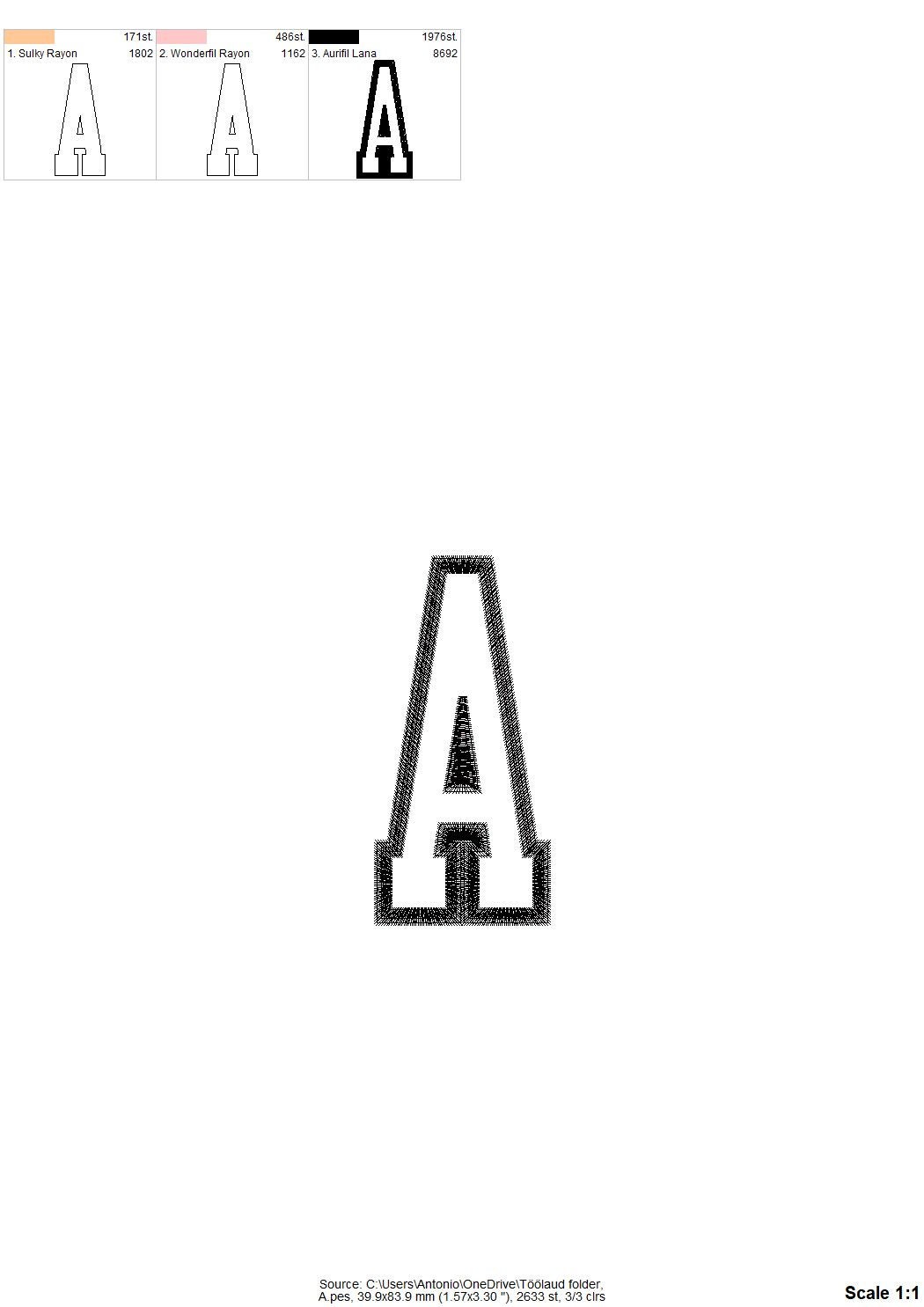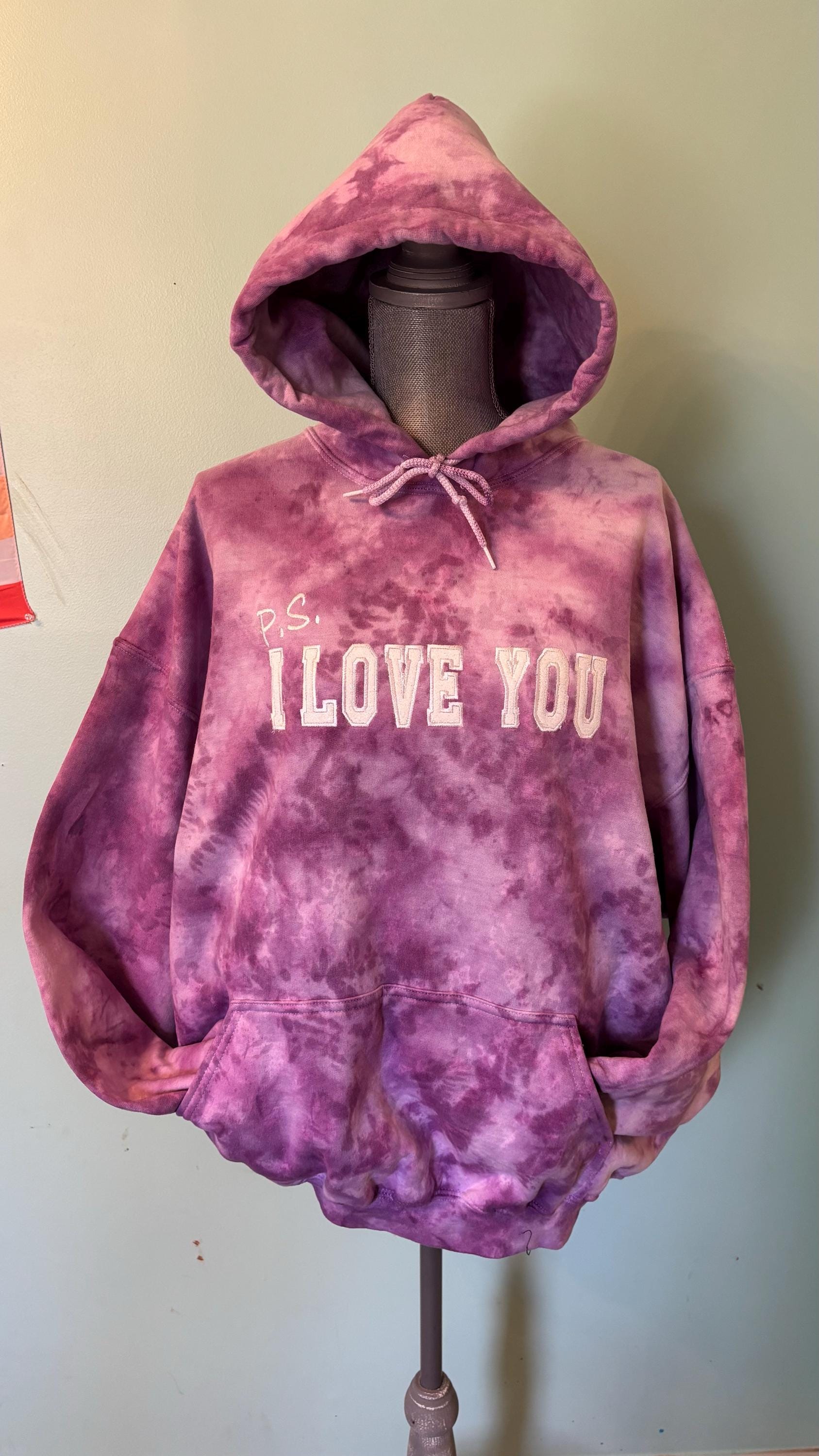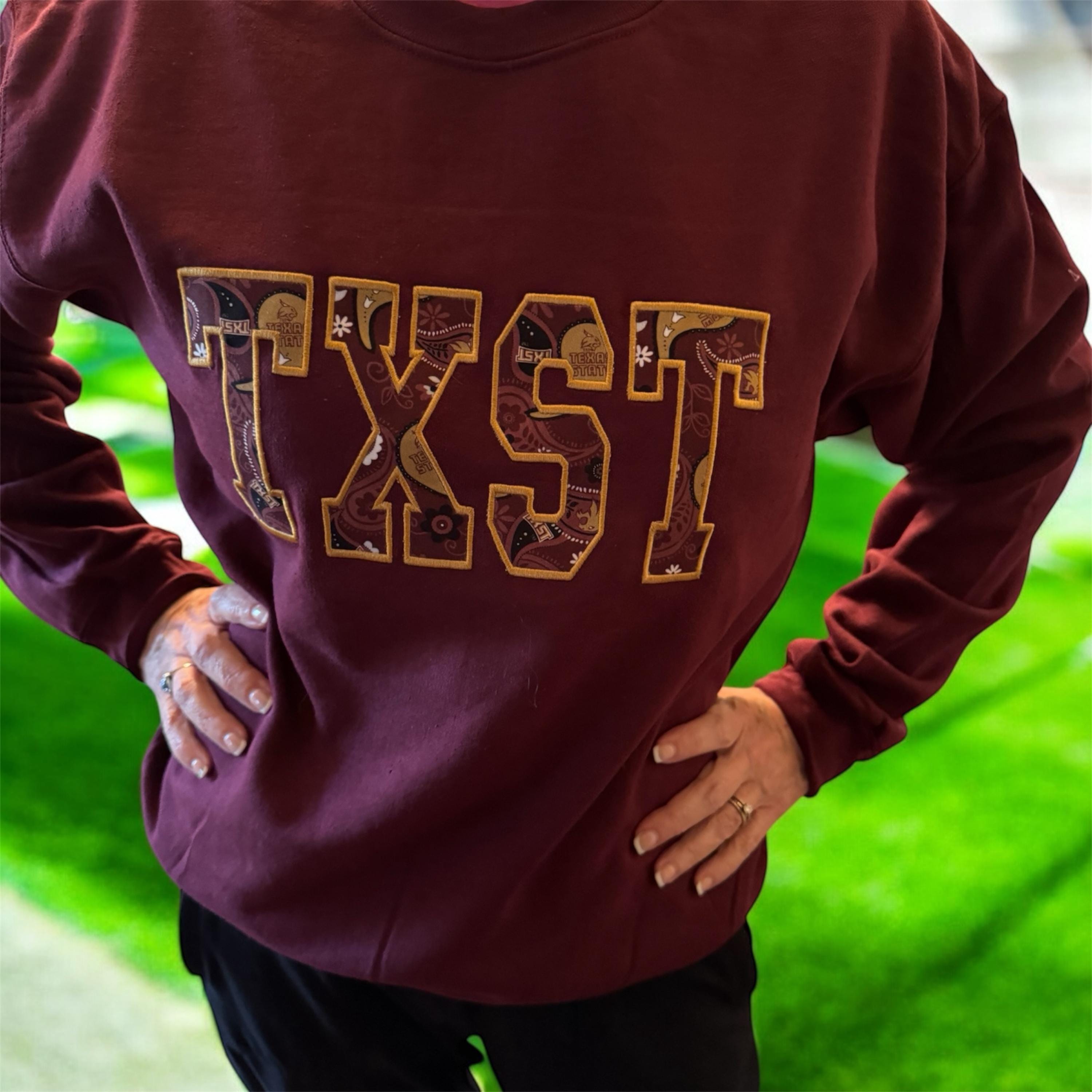
Thin Narrow FONT Athletic Sport High School Team Players machine embroidery designs, sport alphabet letters BX font included
Applique font
The font has a nice wide satin stitch outline.
This is a font of capital letters and numbers, including ampersand "&"